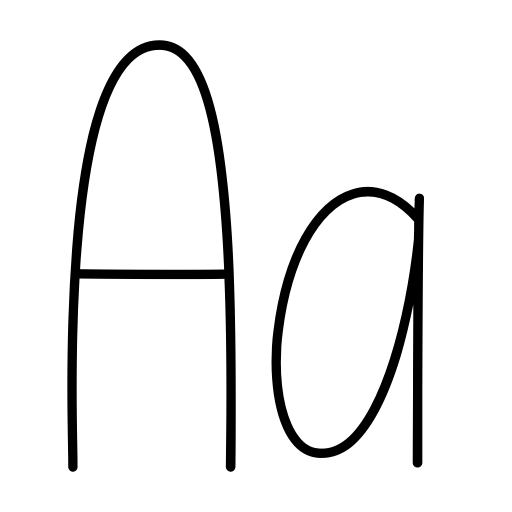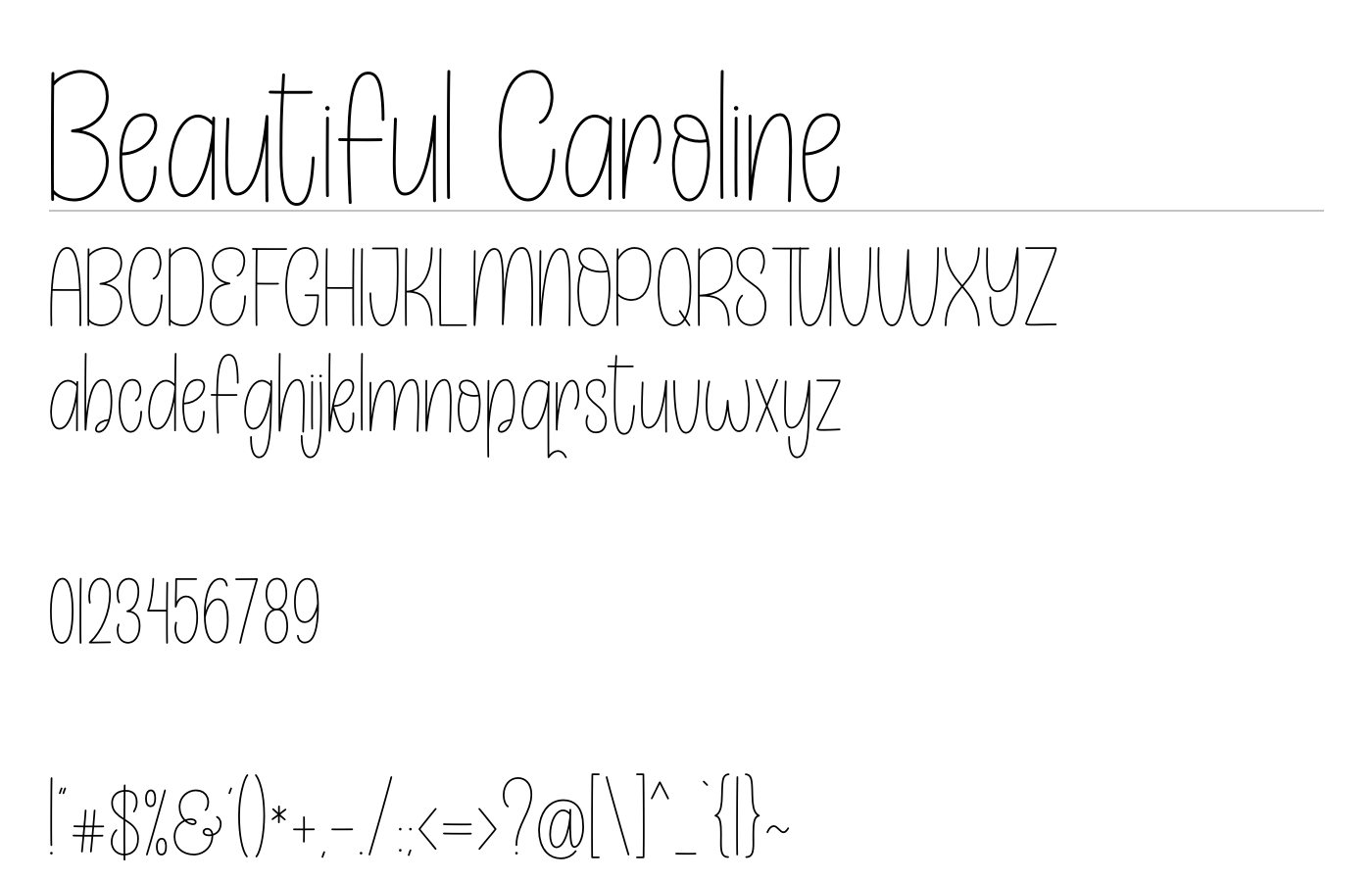
Beautiful Caroline is a slender, hand-drawn sans serif font with a tall x-height and delicate, playful lines that give it a light and airy feel. Its unique letter shapes and whimsical curves create a charming, casual personality perfect for creative projects, invitations, and branding that seeks a friendly, approachable look. This font works well for headlines and decorative text where a touch of handcrafted elegance is desired.
Beautiful Caroline Font
About Beautiful Caroline Font
| Font family | Beautiful Caroline Font |
| Designer | Typesthetic Studio - Hamzah Muhamad Ihsan - Jakarta (INA) |